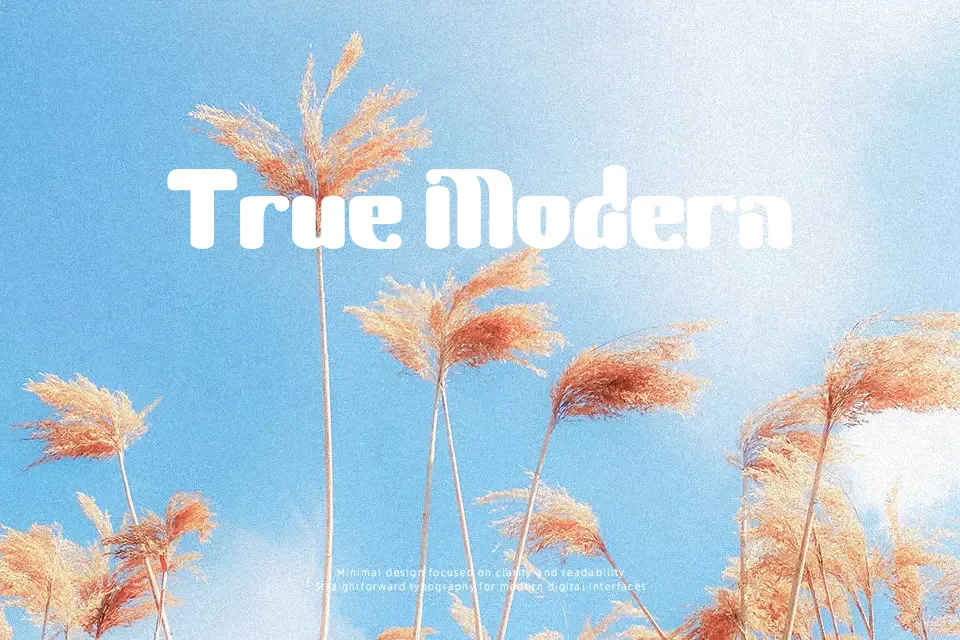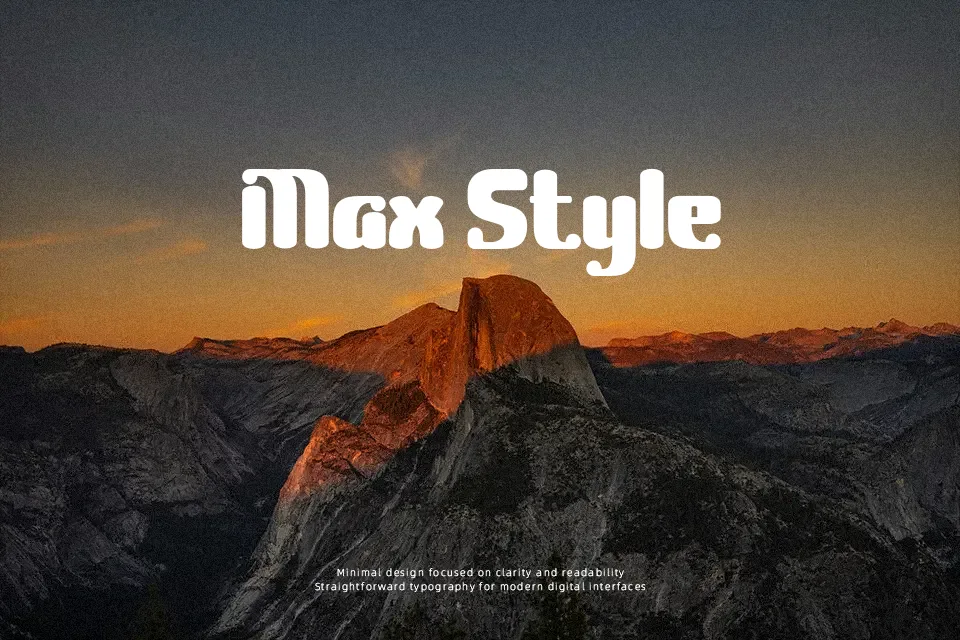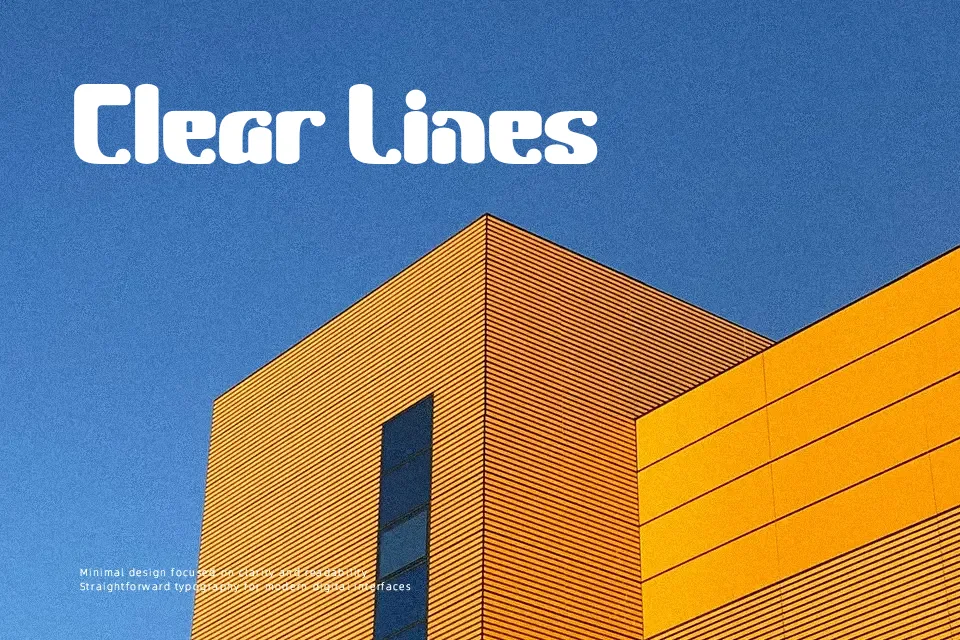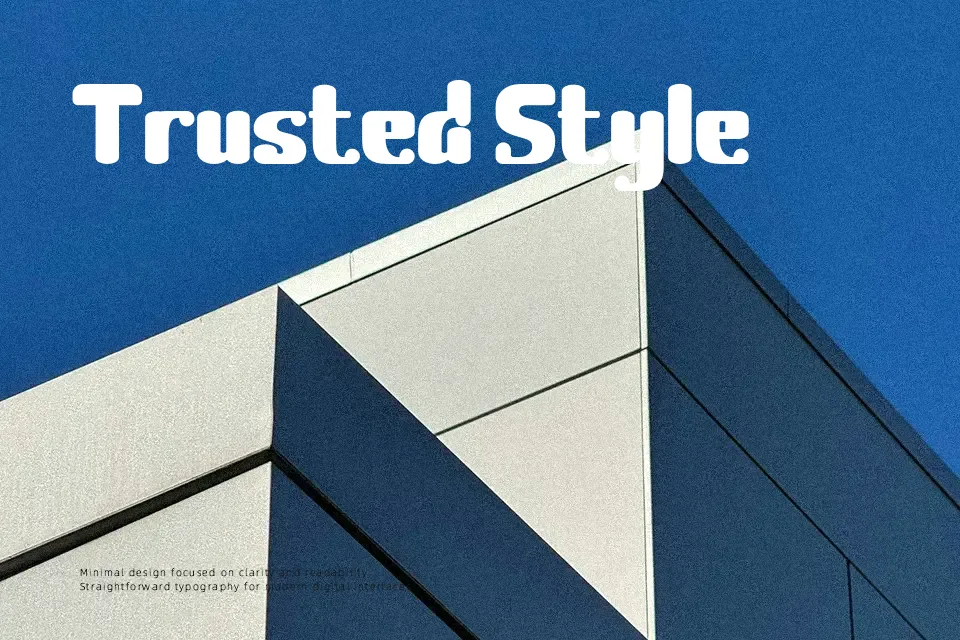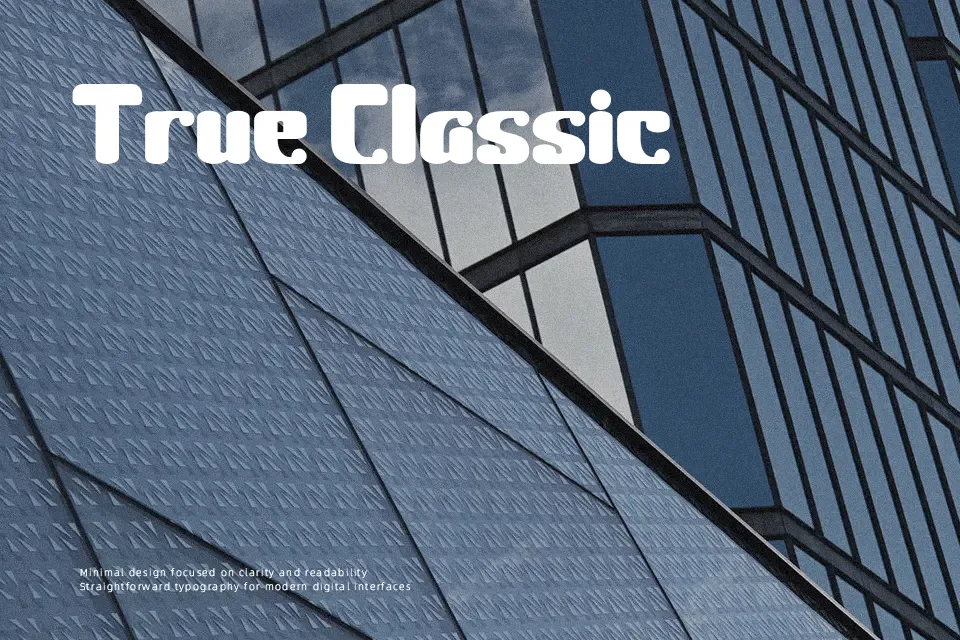
Blagak Font
Blagak leans fully into a groovy, retro-display aesthetic — think rounded terminals, bouncy stroke rhythm, and letterforms that feel lifted from 1970s album covers. The spacing is relaxed and the weight sits on the heavier side, which gives it a laid-back confidence at large sizes. It works especially well on music festival posters, vintage-style packaging labels, and social campaigns where a warm, nostalgic tone is the point. That same personality, however, becomes a liability in more restrained contexts. Anything requiring a neutral or professional tone — corporate decks, formal editorial, UI components — will clash with its expressive character. Think of it as a companion to bold, personality-driven branding rather than a workhorse typeface.
Music event flyers and festival branding,retro-style packaging labels,bold social media headline graphics,vintage-themed advertising campaigns
Corporate or formal editorial layouts,UI components and interface text,projects requiring neutral typographic tone
Perfect for advertising, branding, and packaging, with a bold and display style.